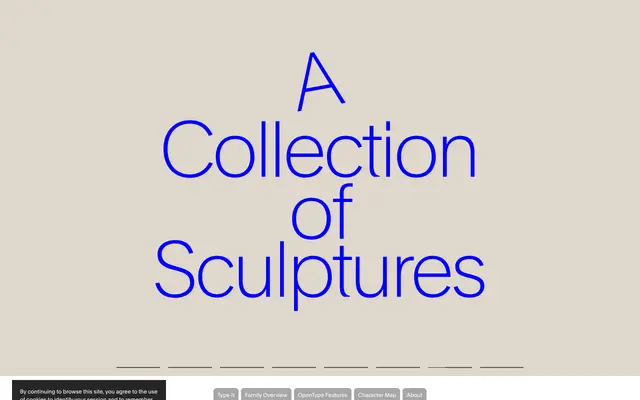
Rand
Optimo · François Rappo · 2019
Closing chapter of Rappo's grotesque trilogy after Plain and Apax, drawn for warmth in the rigidity of modern design, with a Mono companion.
A grotesque by François Rappo that closes the trilogy of Plain (2014) and Apax (2016). Where Plain investigates rational modernist simplicity and Apax re-evaluates constructivist visual grammar, Rand explores the warmth and spirit that emerged from The New York School. Seven weights with italics give the family a balanced editorial range, and Rand Mono, with its shortened capitals and considered proportions, completes the system for code and tabular work.
Optimo positions Rand as the conclusion of Rappo's grotesque trilogy after Plain (2014) and Apax (2016), exploring the warmth that brought spirit to the rigidity of modern design, notably in The New York School.